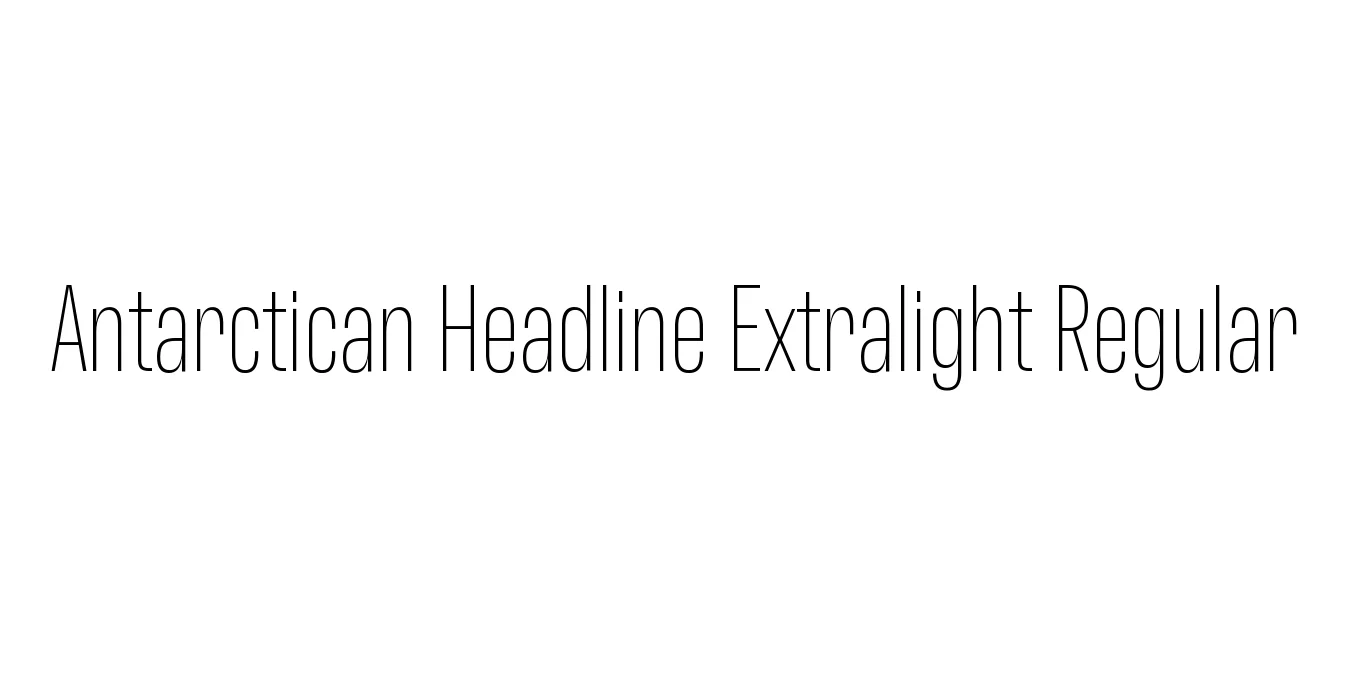
Antarctican Headline Extralight Regular
Designed by Chester Jenkins
Antarctican Headline Extralight Regular is a meticulously crafted sans-serif typeface designed by Chester Jenkins and released through the Constellation foundry. This font is part of the broader Antarctican superfamily, which was inspired by the technical and utilitarian nature of industrial signage and mechanical blueprints. The Extralight weight specifically offers a refined, monolinear aesthetic that balances rigid geometry with a contemporary, airy feel, making it a favorite for modern designers seeking a clean look.
The typeface is characterized by its open apertures and consistent stroke widths, which ensure exceptional clarity despite its thin profile. Originally intended for high-impact display use, Antarctican Headline Extralight Regular excels in contexts where precision and sophistication are paramount. Its neutral yet distinct personality allows it to function beautifully in both digital interfaces and high-end print media, providing a professional edge to any typographic composition.
Antarctican Headline Extralight Regular Best Uses
Ideal for large magazine headlines and minimalist layout titles.
Suitable for technology or architecture firms looking for a precise identity.
Excellent for clean hero sections and modern navigation menus.
Works well for large-format prints where thin lines create a sophisticated impact.